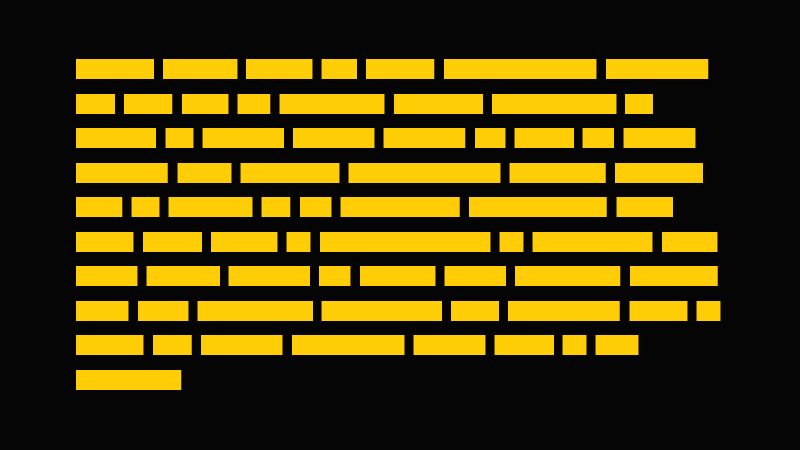
Dummy Text is a playful and unique dingbat font designed by GGBotNet. It's perfect for adding a touch of whimsy to any project, from greeting cards to social media graphics. With a variety of shapes and designs, Dummy Text is suitable for both personal and commercial use. Whether you're looking to add some personality to your website or create eye-catching marketing materials, this semi-bold font has got you covered. Its wide range of characters makes it perfect for creating patterns, icons, and logos that stand out from the crowd. Try Dummy Text today and watch your designs come to life!